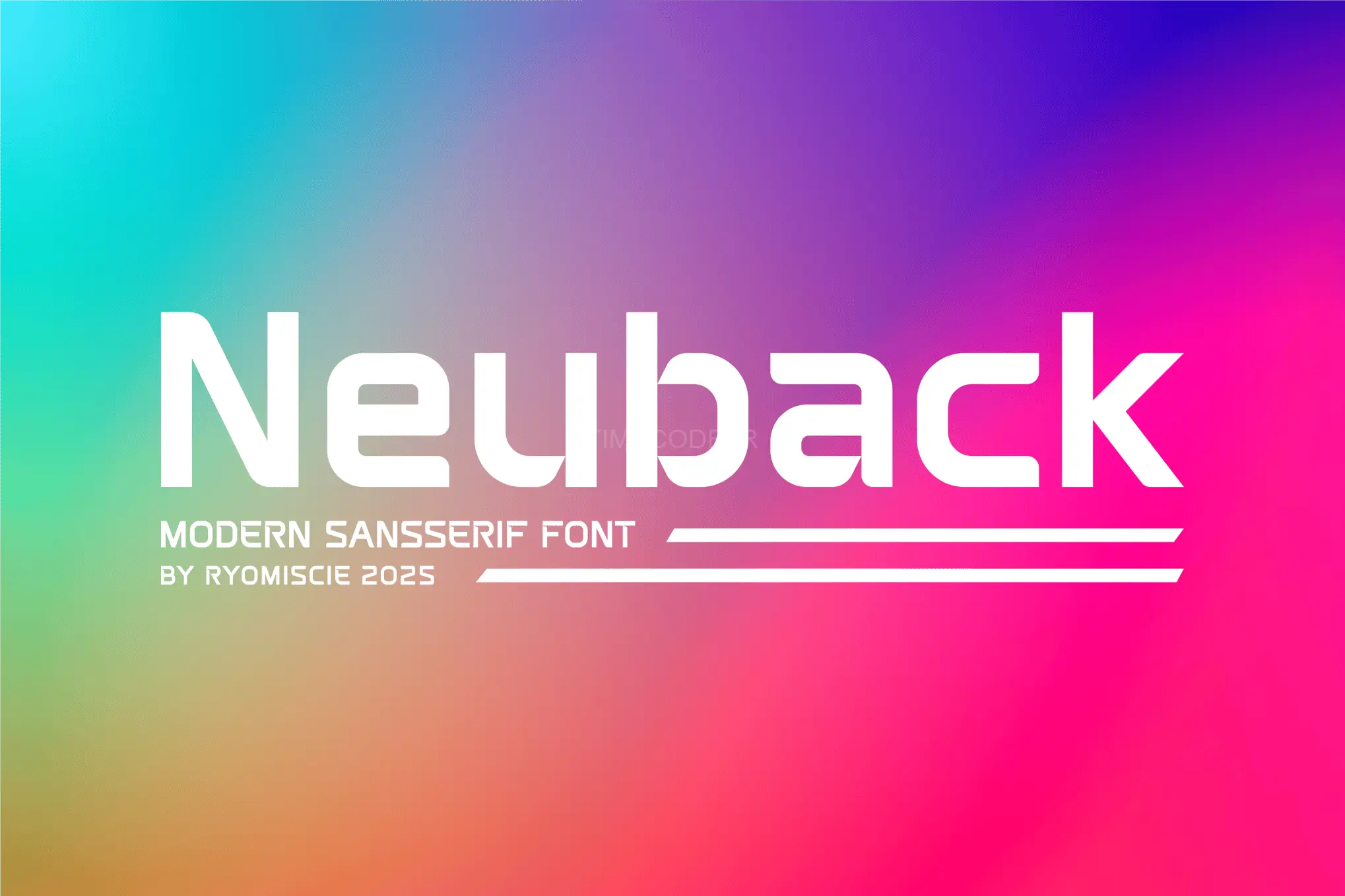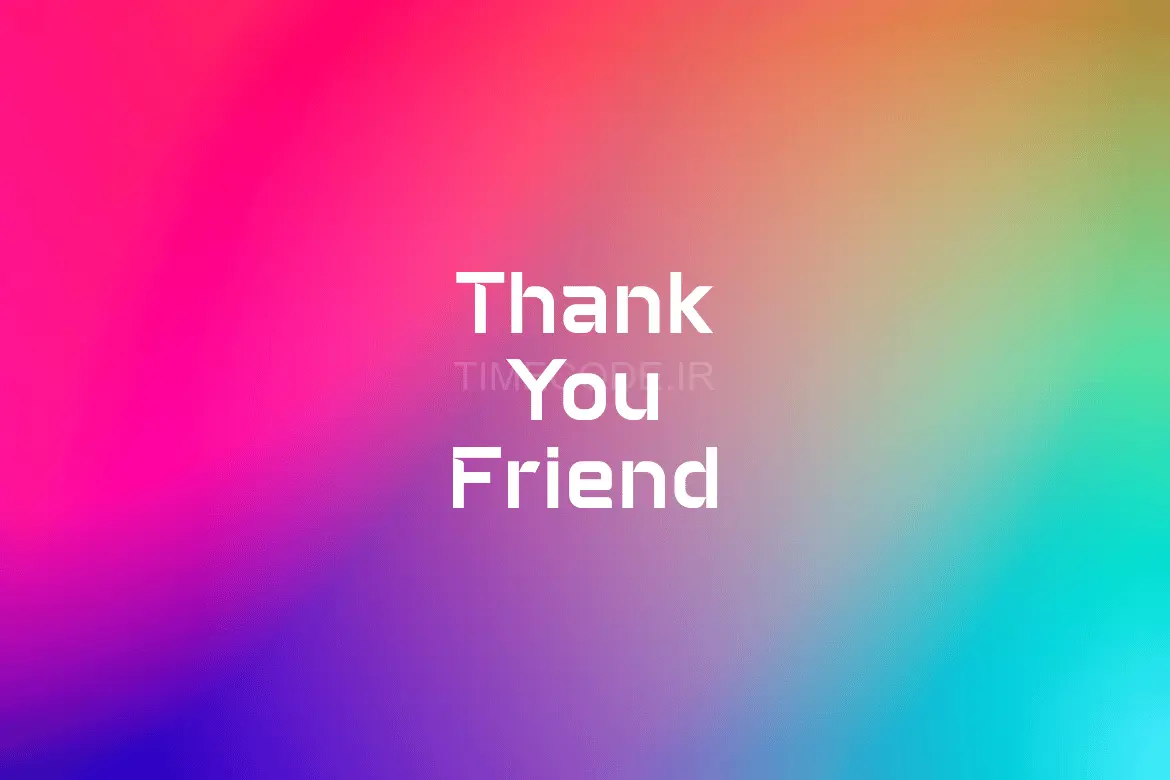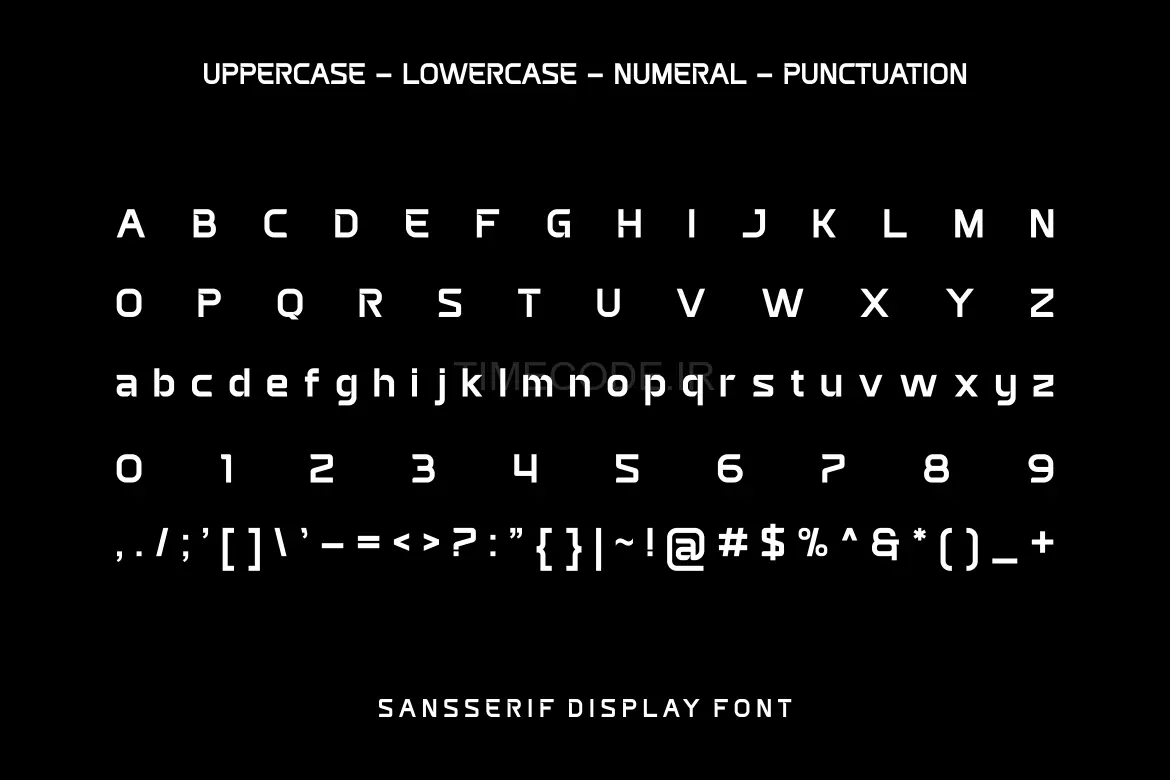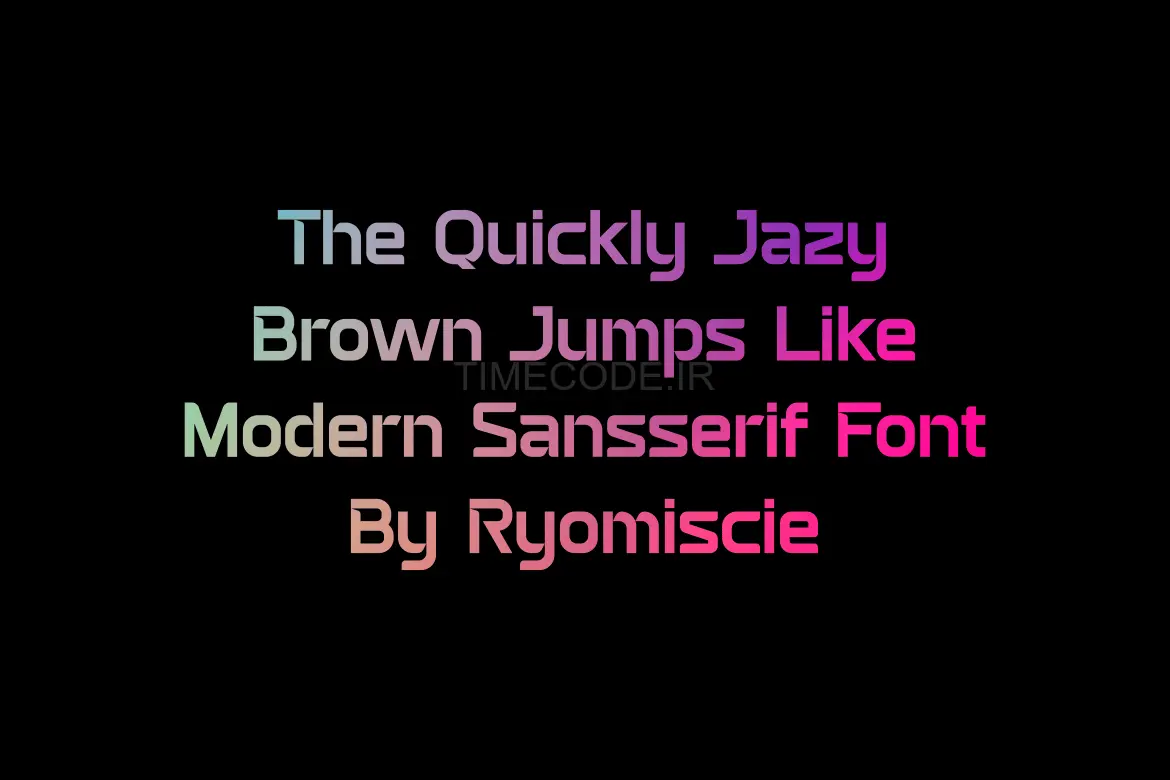
Introducing our new product Neuback Font - Modern Font
Neuback Font- Modern Font is a bold and authentic display font. The font is suitable for any branding project like logo,
t-shirt printing, esport, and many more. outstanding in a wide range of contexts.